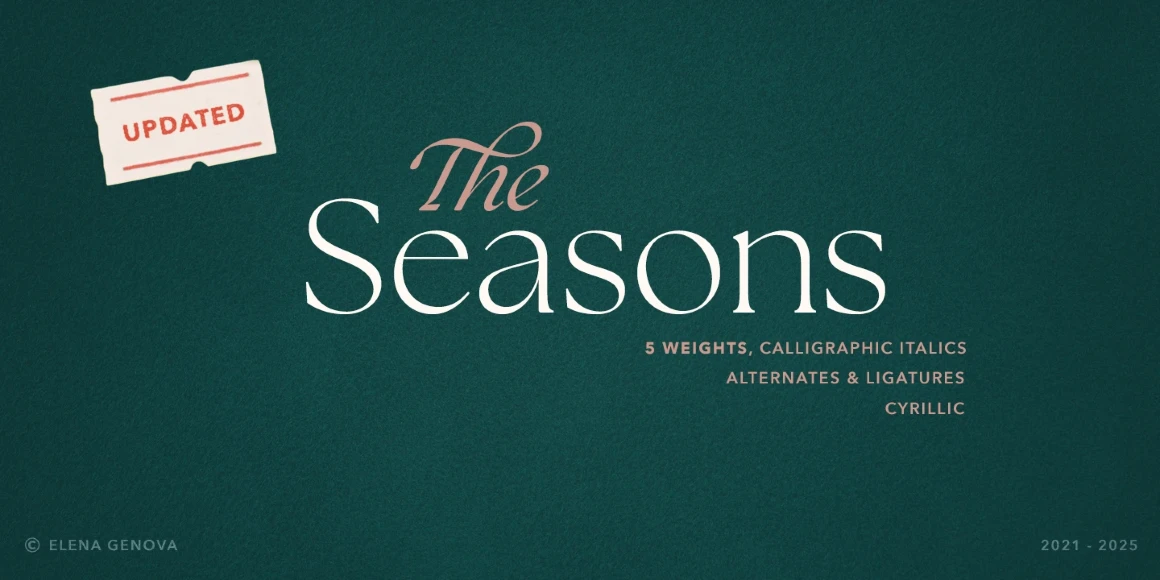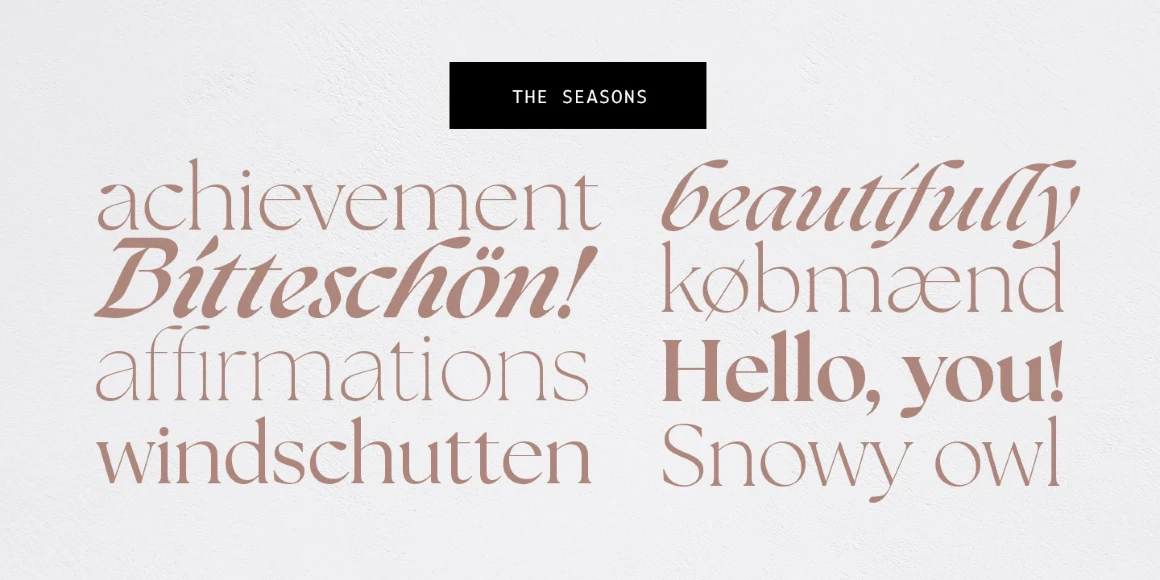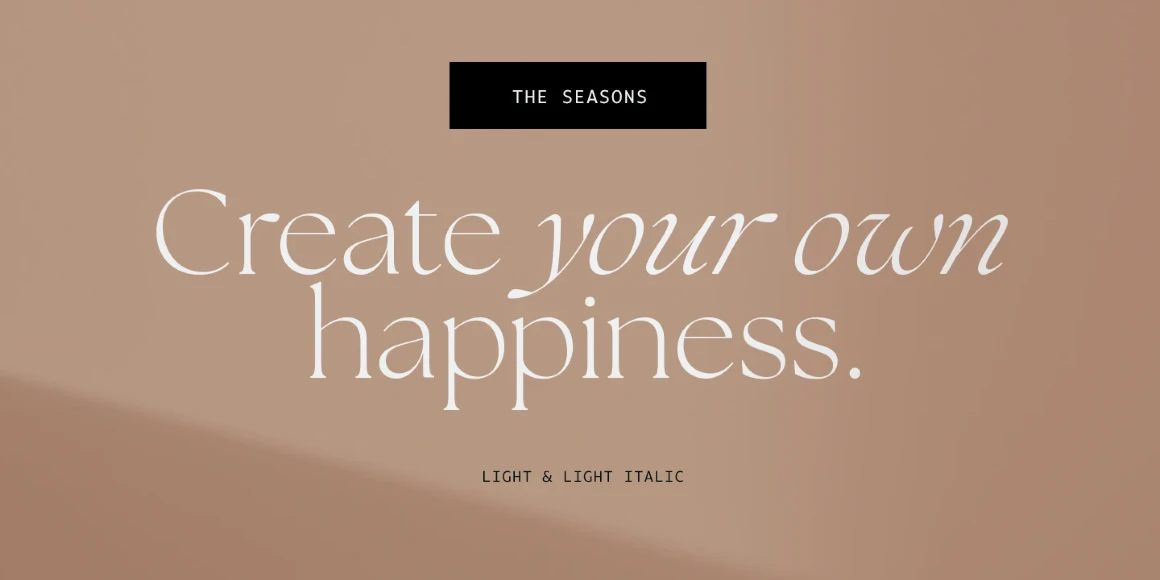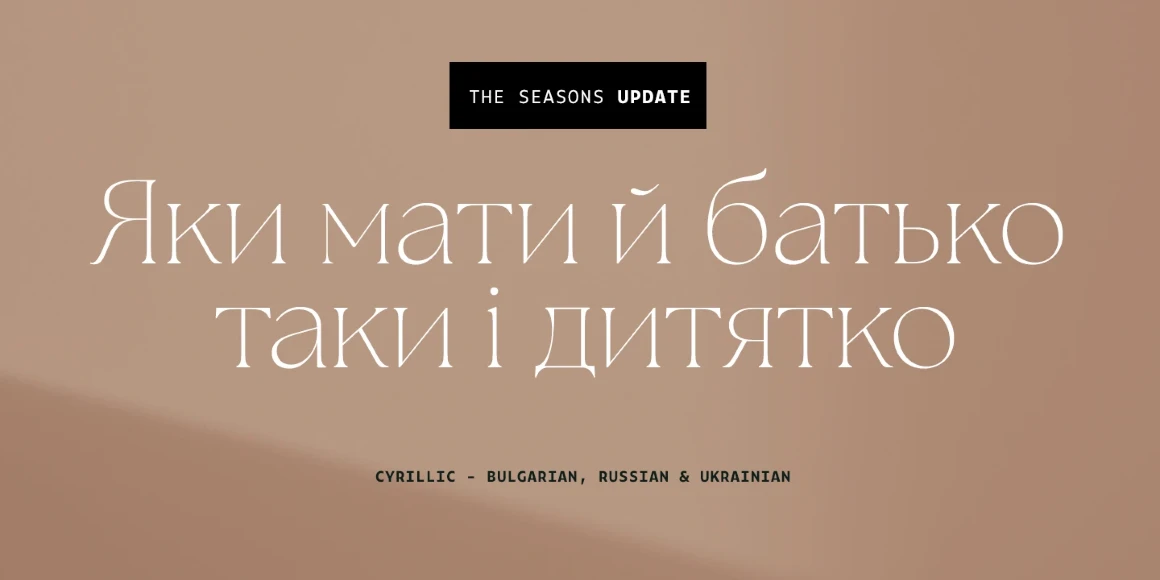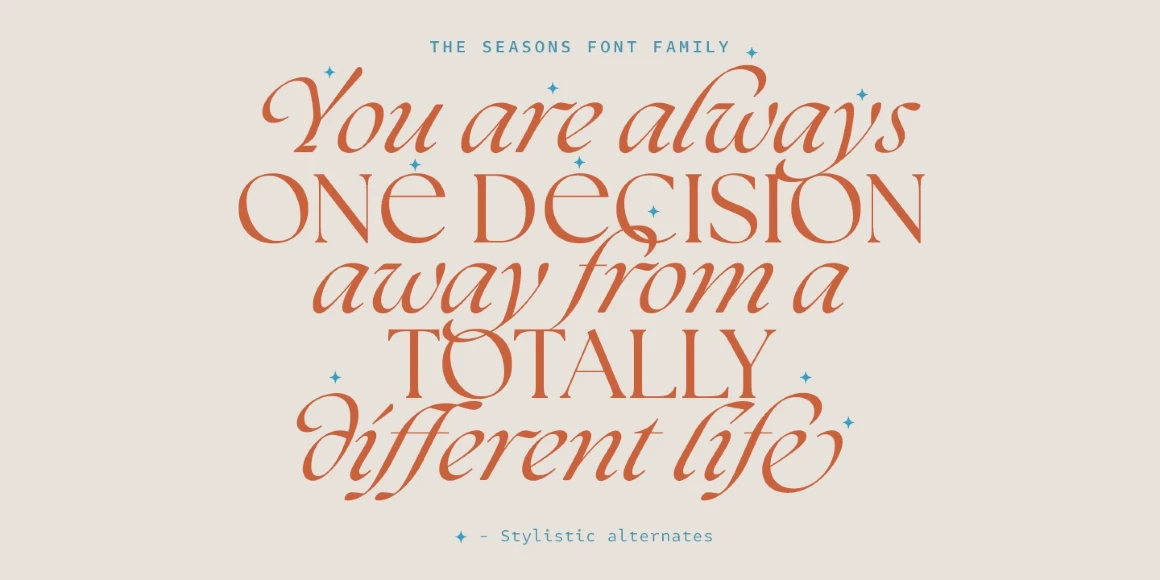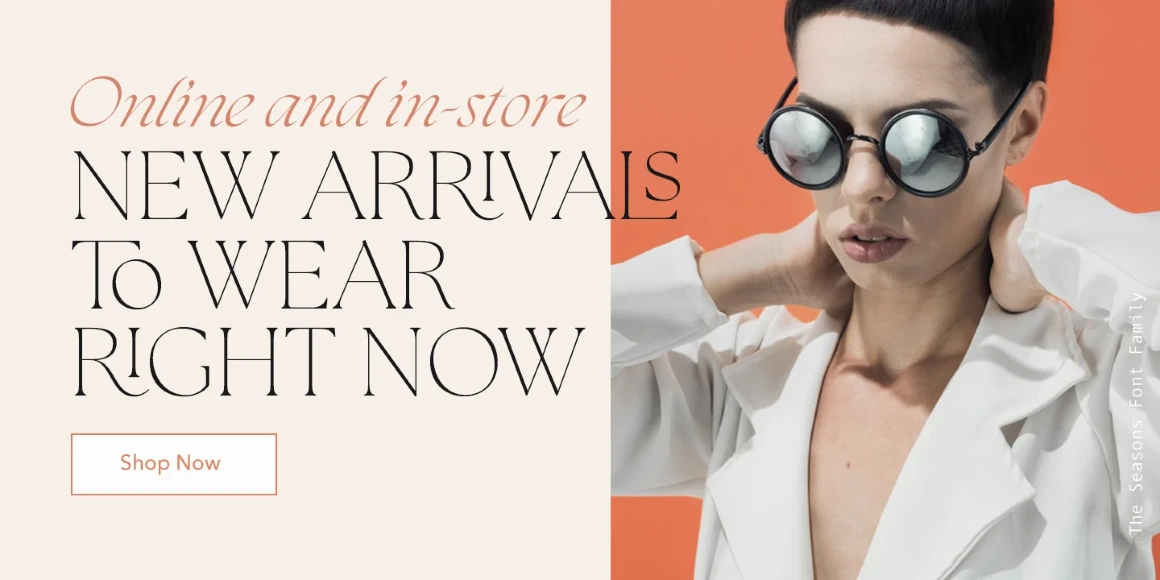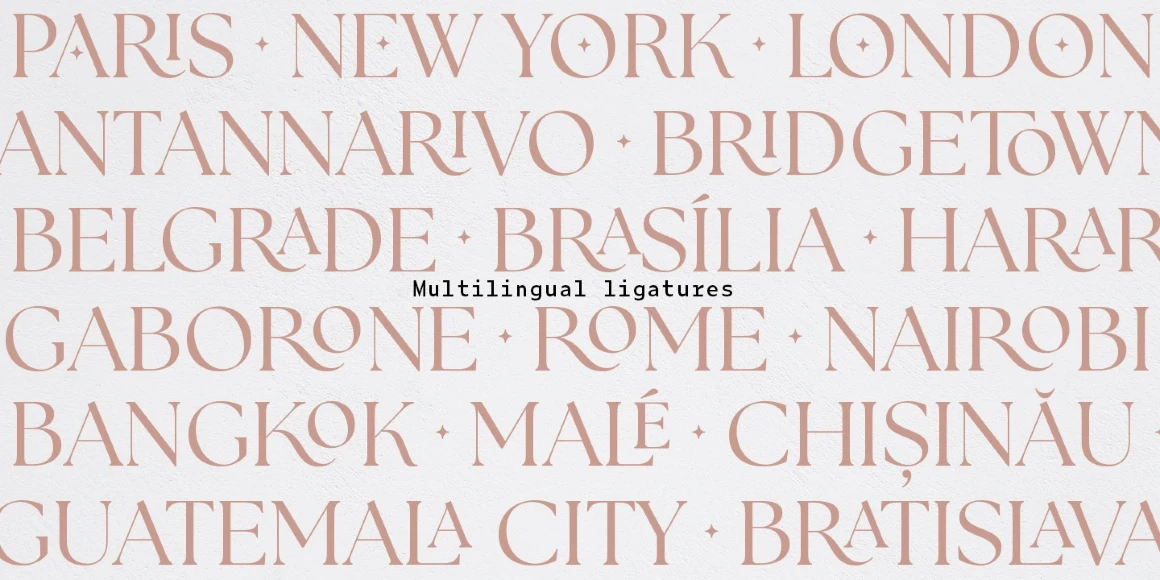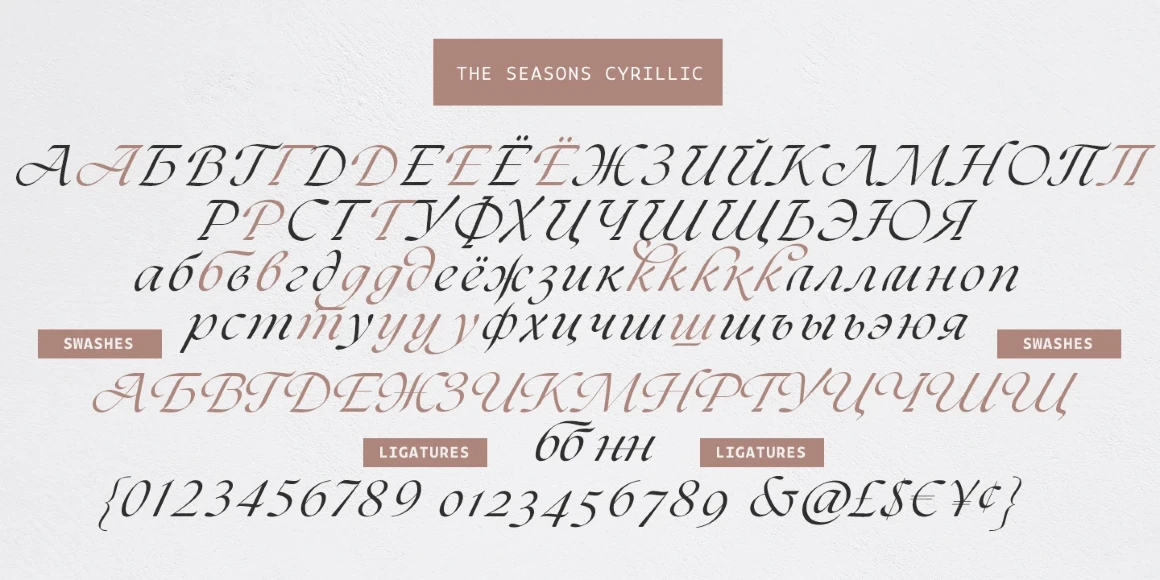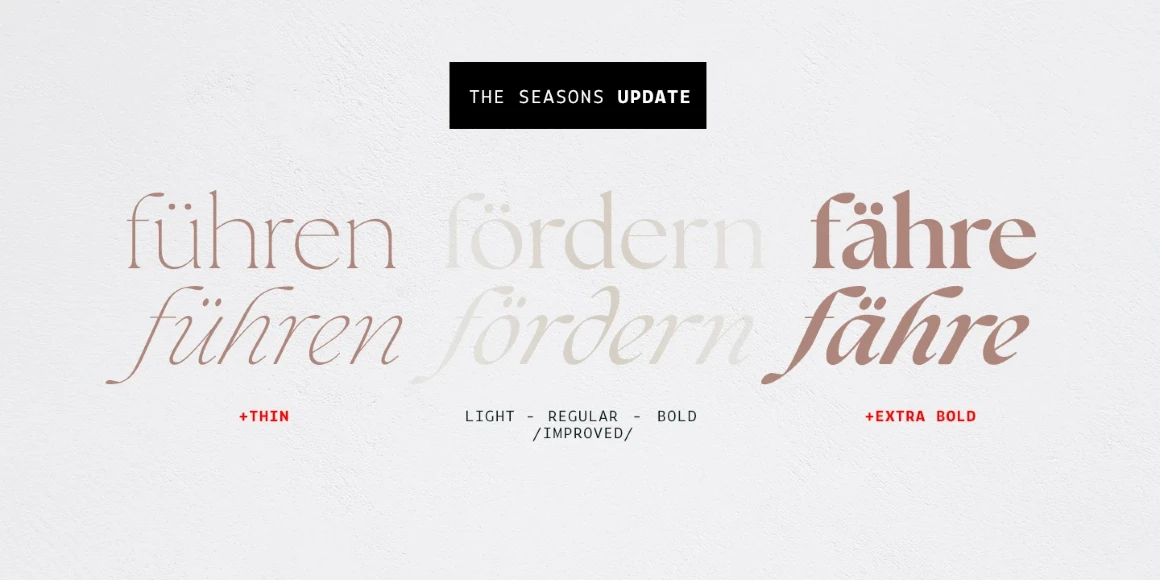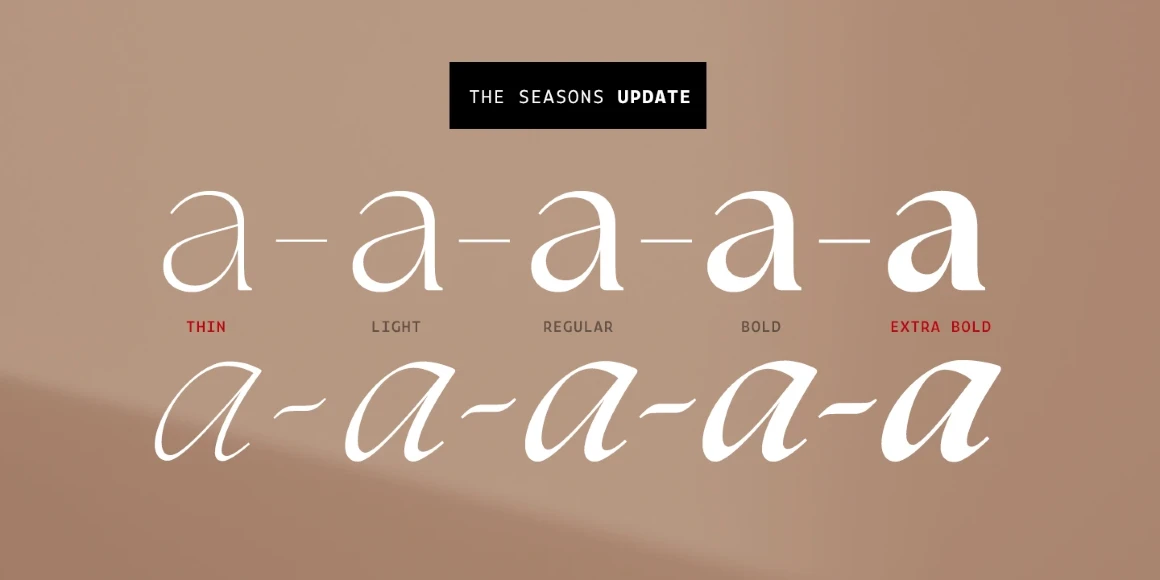
The Seasons
By Elena Genova
The Seasons is an elegant serif family with a strikingly chic look. The companion calligraphic italics are based on humanistic scripts and written using a Pilot Parallel Pen. The design is further enhanced with ligatures and stylistic alternates. All weights — Thin to ExtraBold — share the same style of softly sheared terminals and sharply dramatic curves, making them perfect for branding, logos, magazines, product packaging, and invitations. Language support includes Extended Latin and Cyrillic.